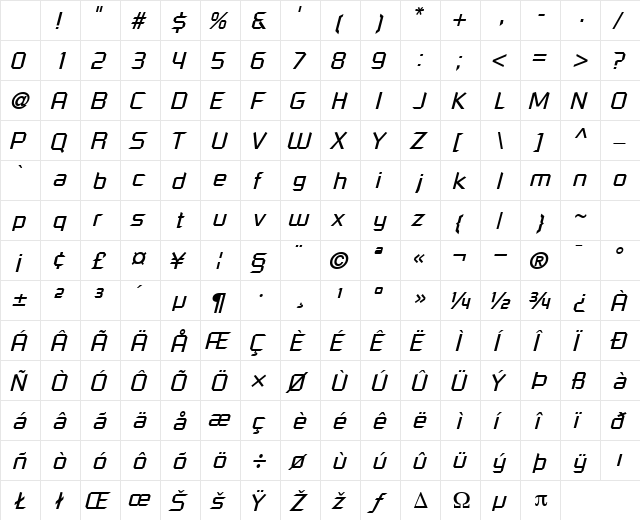
Complete ShoestringSSK Italic glyph index. Displaying only characters natively supported by ShoestringSSK Italic font.
ShoestringSSK is a composed and adaptable typeface that performs quietly and consistently across a wide range of design contexts. The slanted form adds forward momentum and visual energy.